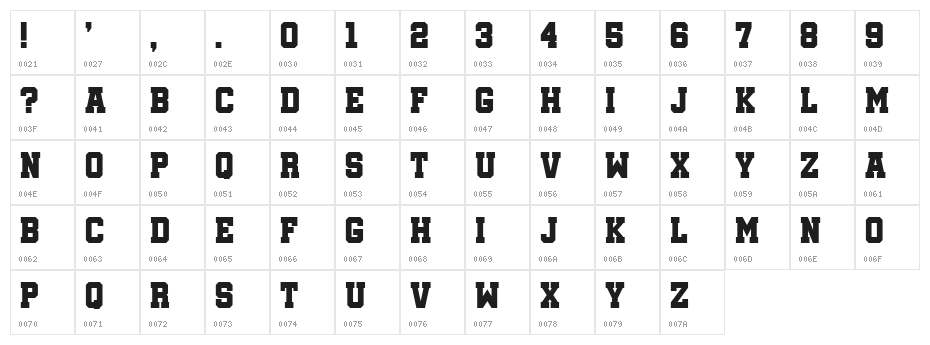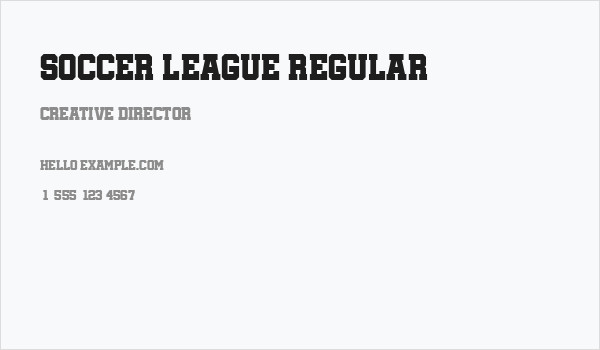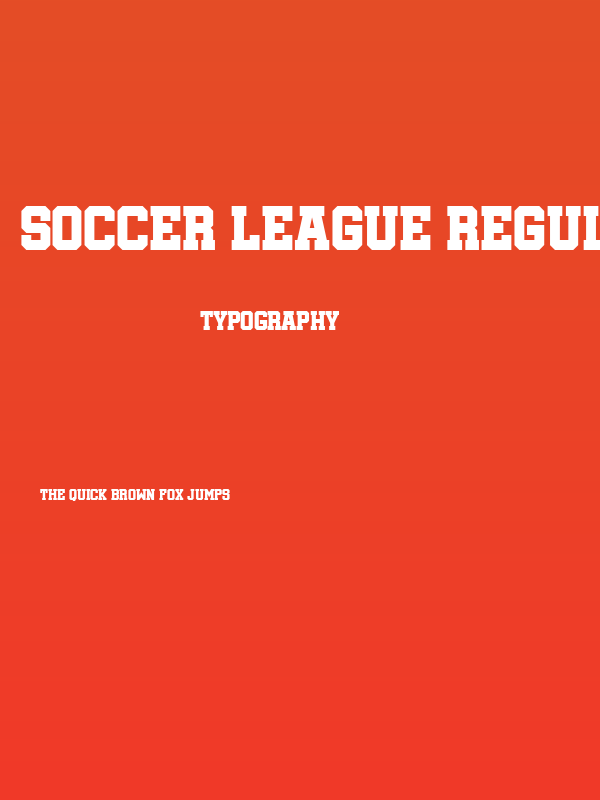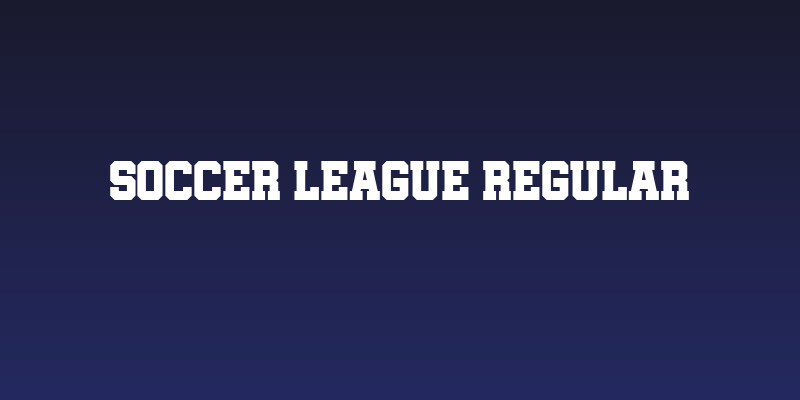
Soccer League Regular Font
Soccer League Regular Description
This font features a bold and robust design, characterized by its strong, block-like structure. Each letter is crafted with a uniform thickness, giving it a powerful and commanding presence. The edges are sharp and angular, contributing to a sense of stability and strength. The font maintains a consistent height across all characters, ensuring a cohesive look. Its geometric style is reminiscent of sports or athletic themes, making it ideal for projects that require a dynamic and energetic feel. The numbers and special characters are equally bold, maintaining the overall aesthetic. This font is perfect for creating impactful headlines or titles that need to stand out.
| Proposed Projects | Ideal for sports branding, team jerseys, posters, and dynamic headlines. |